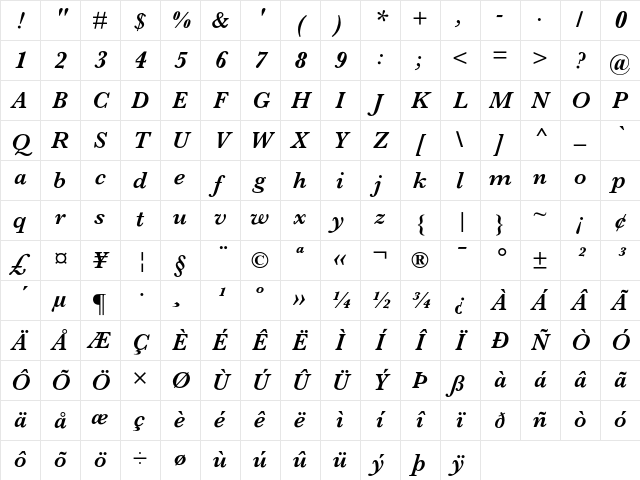
Baskerville Semi Bold Italic
Style: Semi Bold Italic
Baskerville Family
Design Context for Baskerville
Baskerville is a composed and adaptable typeface that performs quietly and consistently across a wide range of design contexts. The slanted form adds forward momentum and visual energy. Its bold stroke weight gives it real presence on the page.
Pro Tip: Use Baskerville for emphasis, pull quotes, and subheadings where its slanted energy can add rhythm to the layout.